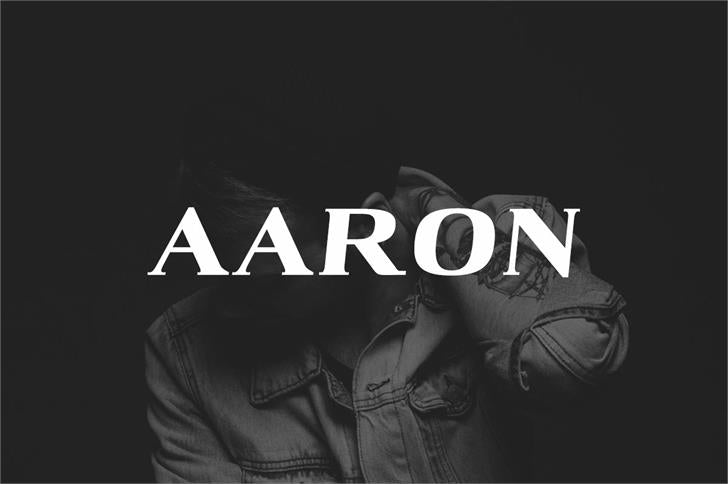
Free Aaron Black Font
Download and enjoy this free aaron black font. Cool typeface to showcase your designs in a modern way. Go give some love to Font Space for creating this top-notch free typeface. This is absolutely beautiful font so you can easily make world-class designs.